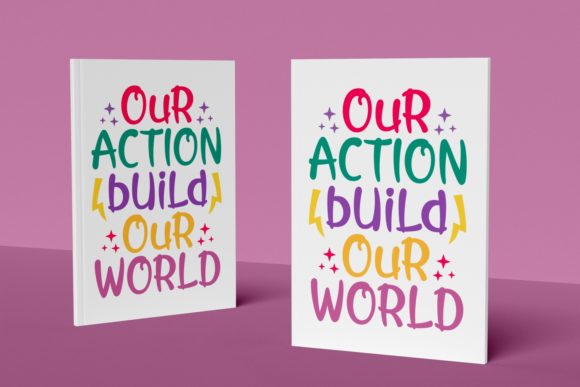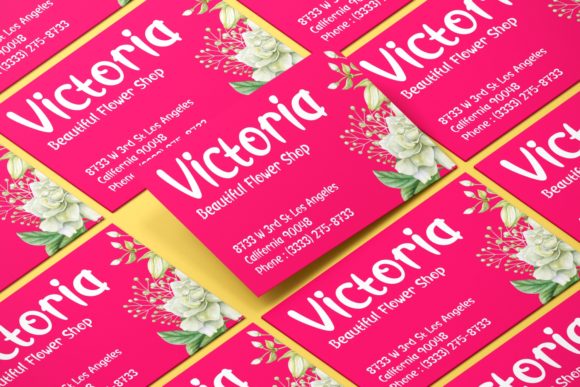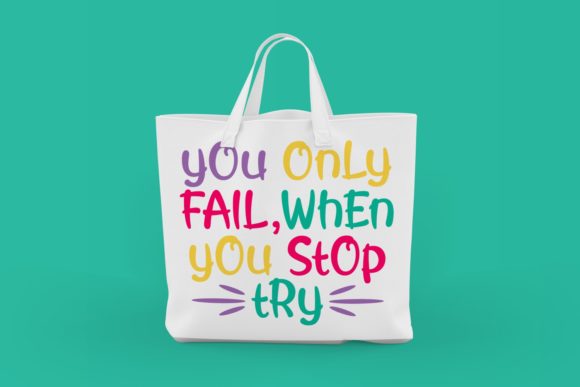
Introduction to Quirky Crafts Font
Do you remember the feeling of excitement and joy when you first started a new art project as a child? The thrill of creating something with your own hands, the freedom to express yourself, and the sense of accomplishment when you finished? That’s exactly what the Quirky Crafts Font embodies – a sense of playfulness and authenticity that brings a smile to your face.
As a designer, you know how valuable it is to have the right tools and resources at your disposal. That’s why we’re excited to introduce you to the Quirky Crafts Font, a fun and joyful handwritten font that’s perfect for any children’s activity or school project. With its high-quality design and transparent background, this font is a valuable addition to any design resource.
Key Features of Quirky Crafts Font
- Unique, hand-drawn design with a quirky touch, perfect for creative projects.
- Perfect design resource for crafty projects, scrapbooking, and DIY enthusiasts.
Honest Review: Quirky Crafts Font
As a designer, I’m always on the lookout for unique and high-quality design resources to elevate my creative projects. I recently came across the Quirky Crafts Font, and I’m excited to share my thoughts on this versatile font.
What works well: ✨ The Quirky Crafts Font has a delightful, hand-drawn feel that’s perfect for crafting-inspired designs, such as invitations, quotes, and illustrations. The font is available for free download, which is a huge bonus for designers on a budget. The transparent background makes it easy to use in various design applications.
What’s not so great: ⚠️ While the font is high-quality and well-designed, it may not be suitable for all types of projects. The quirky, hand-drawn style may not work well for formal or corporate designs. Additionally, the font is only available in a limited number of weights, which may limit its versatility.
Overall impression: The Quirky Crafts Font is a wonderful design resource for designers who need a unique and creative font for their projects. Its free download and high-quality design make it a great addition to any design library.
- Unique, hand-drawn feel
- Perfect for crafting-inspired designs
To get the most out of the Quirky Crafts Font, experiment with different font sizes, styles, and combinations. Use it in creative projects such as invitations, posters, and social media graphics.
The Quirky Crafts Font is ideal for use in creative projects that require a unique and playful touch. Common use cases include:
- Invitations and event graphics
- Posters and flyers
- Social media graphics and memes
- Printable art and DIY projects